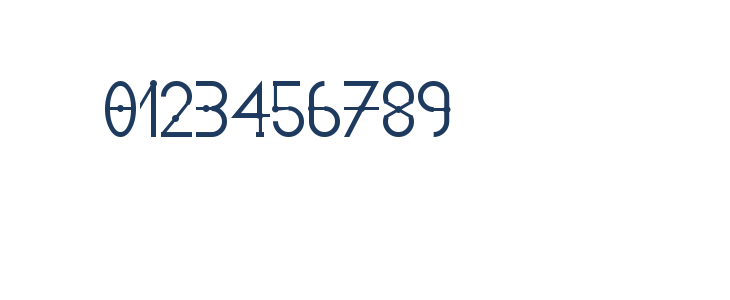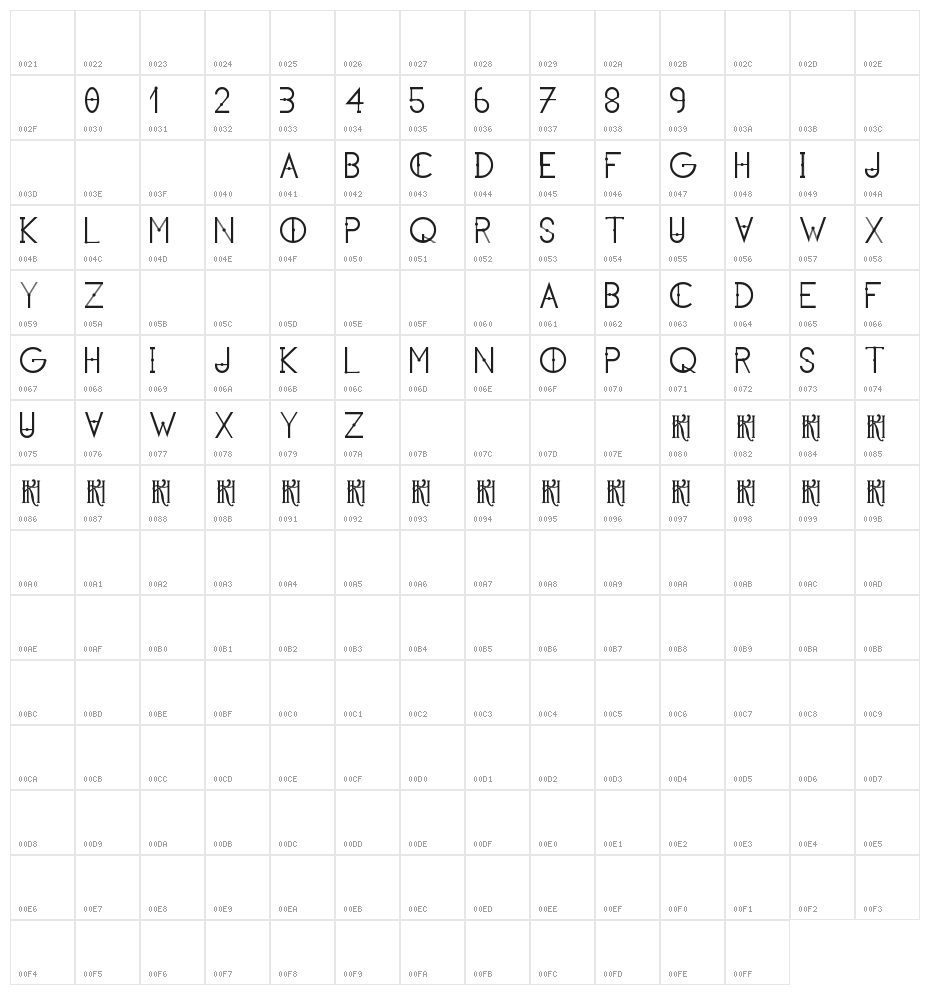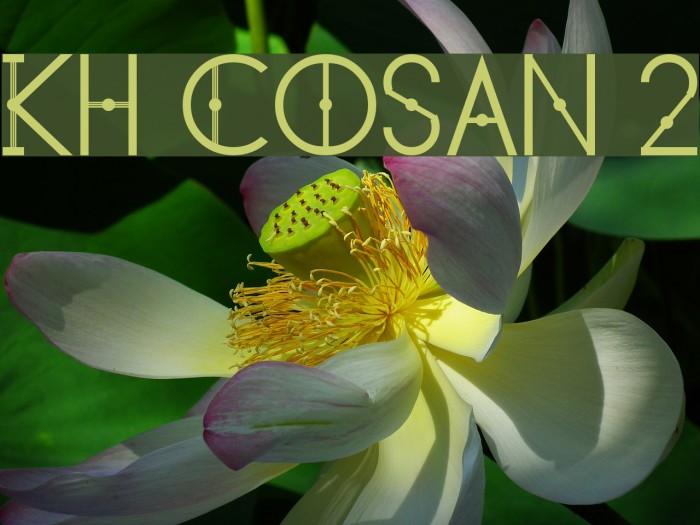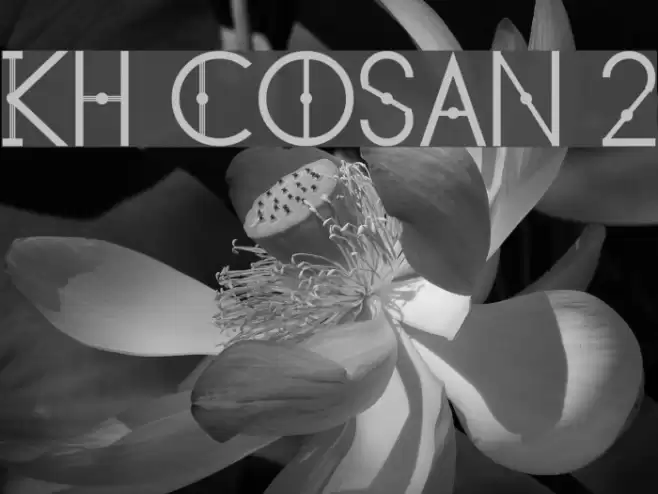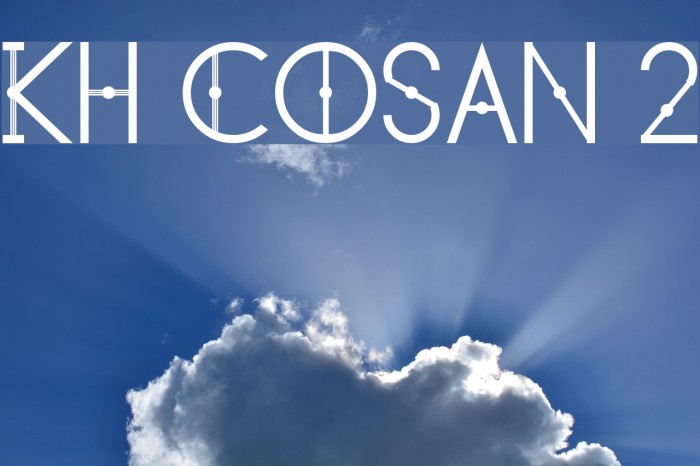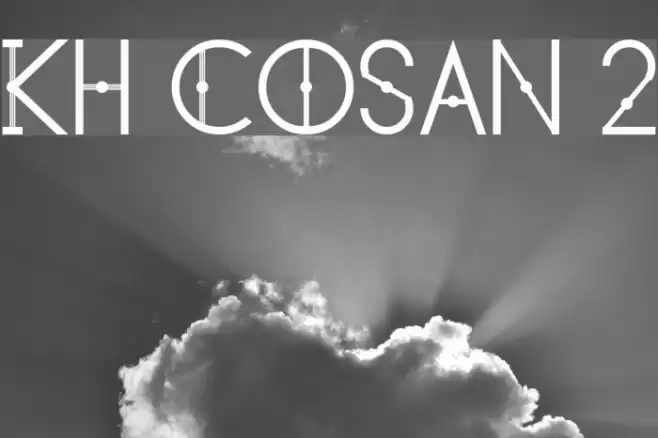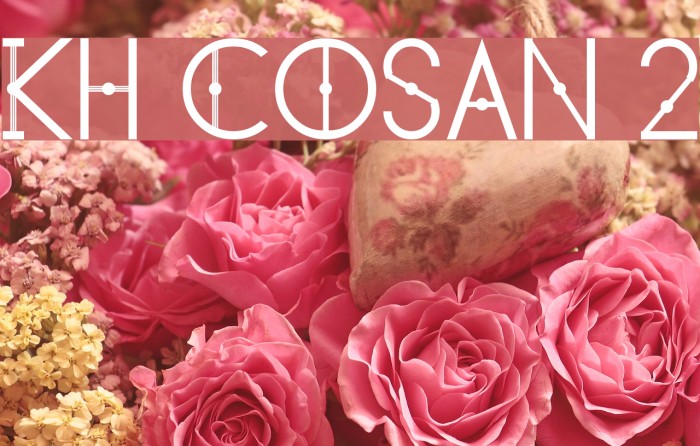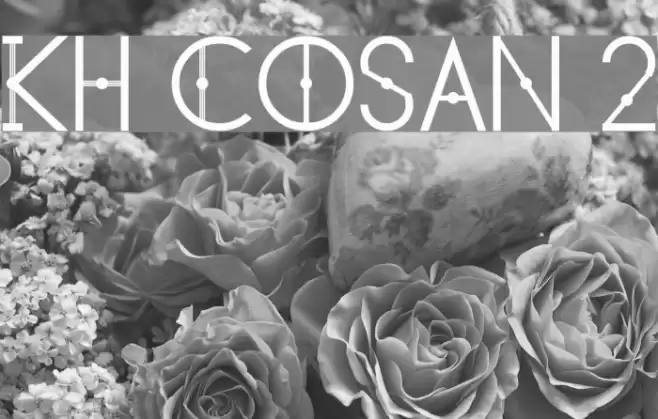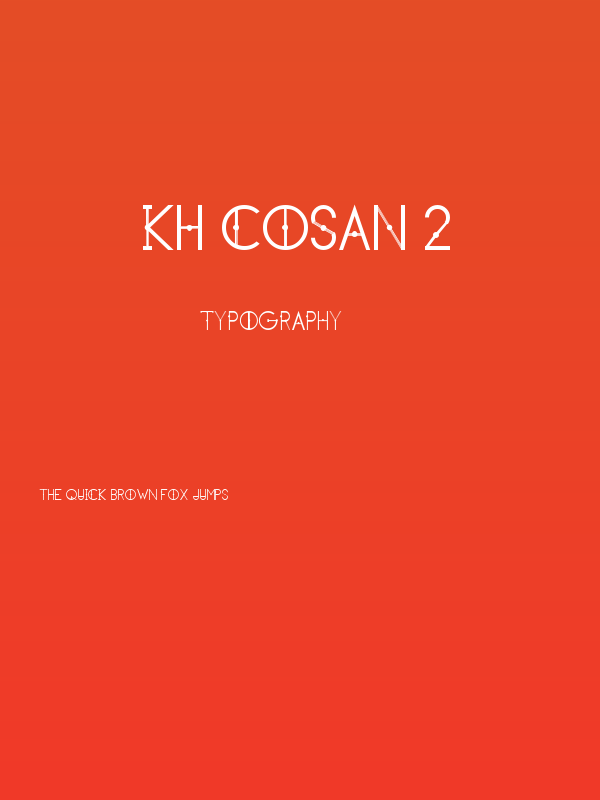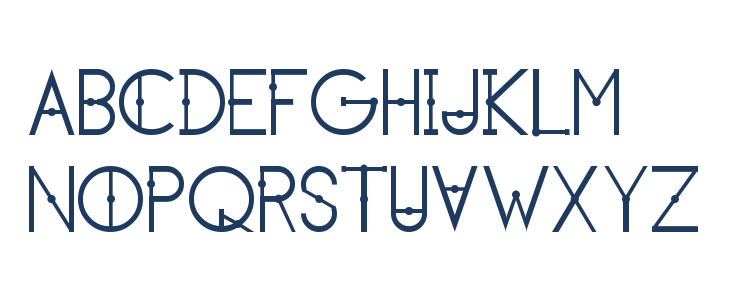
KH Cosan 2 Font
This font features a unique and modern design with geometric elements and a mechanical feel. The characters are constructed with a combination of straight lines and circular forms, giving it a distinct, futuristic appearance. The uppercase and lowercase letters maintain a consistent style, with some characters incorporating open spaces and breaks in their structure, adding to the font's innovative look. The numerals follow the same design principles, ensuring uniformity across all characters. This font's style is ideal for projects that require a contemporary and tech-inspired aesthetic.
Proposed ProjectsIdeal for tech branding, modern posters, futuristic interfaces, and innovative product packaging.